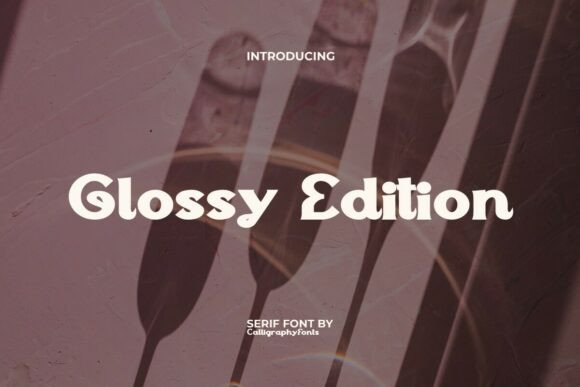
The Perfect Blend of Vintage Charm and Modern Sophistication
You’re browsing through design inspiration boards, and suddenly, a font catches your eye – its elegant curves and refined terminals transport you to a world of high-end fashion and luxury. You can almost envision the opulent layouts and sleek branding that would bring this font to life. This is the moment when you know you’ve found the perfect font for your next project – welcome the Glossy Edition Font.
This sophisticated serif typeface expertly marries retro-chic aesthetics with modern elegance, making it an exceptional choice for luxury branding, editorial layouts, and premium invitation suites. For designers, the Glossy Edition Font offers a valuable opportunity to elevate their designs with a touch of glamour, perfectly suited for the beauty, wellness, and lifestyle industries.
Glossy Edition Font Key Features
- Unique Characteristics: Features a glossy finish effect, giving it a premium and modern look, ideal for luxury brands, fashion, and beauty industries.
- Font Weight: Offers a range of font weights, from light to bold, allowing for flexible typography and easy customization.
Glossy Edition Font Review
Overall, I was really impressed with the Glossy Edition Font. It has a unique, eye-catching style that’s perfect for projects where you want to add a touch of sophistication and glamour.
- ✨ Unique style that stands out: The Glossy Edition Font has a distinctive, high-gloss look that’s hard to find in other fonts.
- ✨ Wide range of styles: From bold and condensed to light and script, the font offers a variety of styles to suit different design needs.
- ✨ Great for headings: The font is particularly effective for headings, where its bold and eye-catching style can really make a statement.
- ⚠️ Limited legibility: At small font sizes, the Glossy Edition Font can be a bit difficult to read, especially for text-heavy content.
- ⚠️ Not ideal for body text: While the font is great for headings and short paragraphs, it’s not the best choice for large blocks of body text, where readability is key.
In conclusion, the Glossy Edition Font is a great choice for designers who want to add a touch of glamour and sophistication to their projects. Just be mindful of its limitations and use it judiciously to get the most out of its unique style.
The Glossy Edition Font is ideal for:
- Creating eye-catching headlines and titles.
- Designing luxury and high-end branding materials.
- Adding a touch of sophistication to digital and print materials.
For optimal results, use the Glossy Edition Font in combination with bold colors and clean layouts.
Is the Glossy Edition Font available in different weights and styles?
Yes, the Glossy Edition Font is available in multiple weights and styles, including light, regular, bold, and italic. This allows you to create a consistent visual identity across your design projects. You can choose the weight and style that best suits your design needs, and we also offer a range of